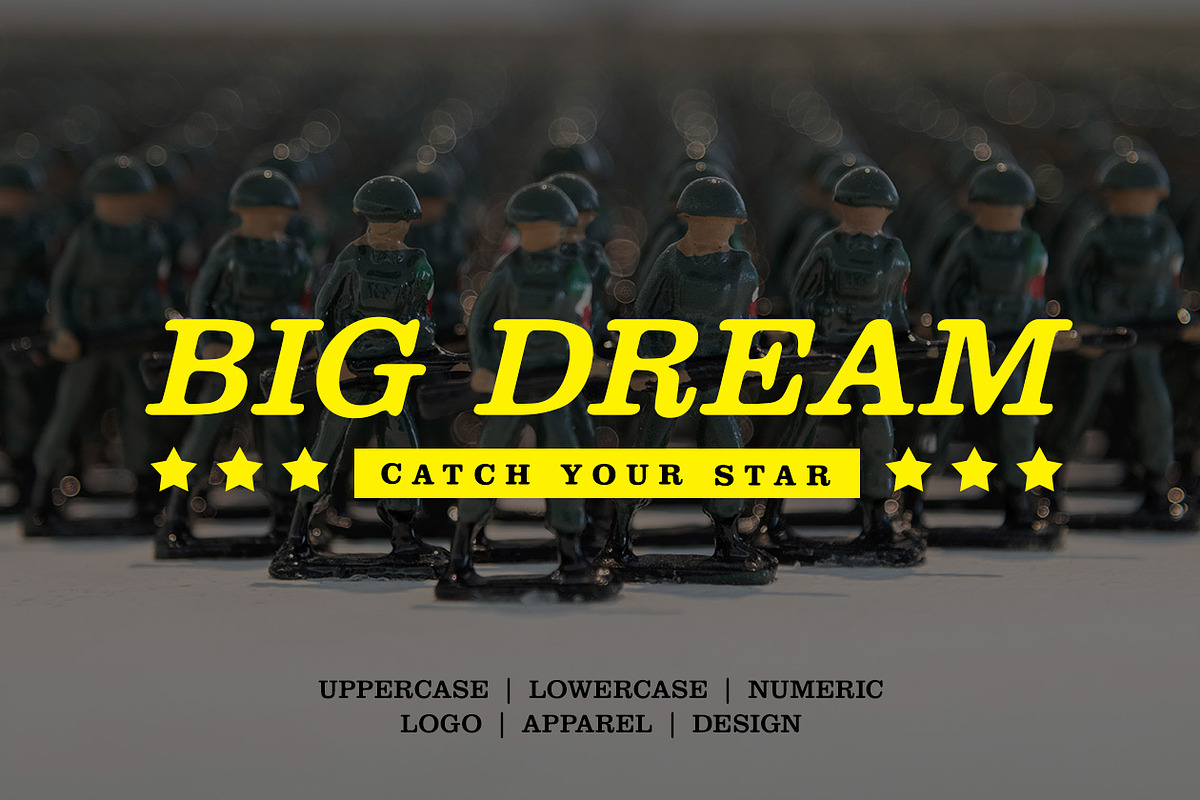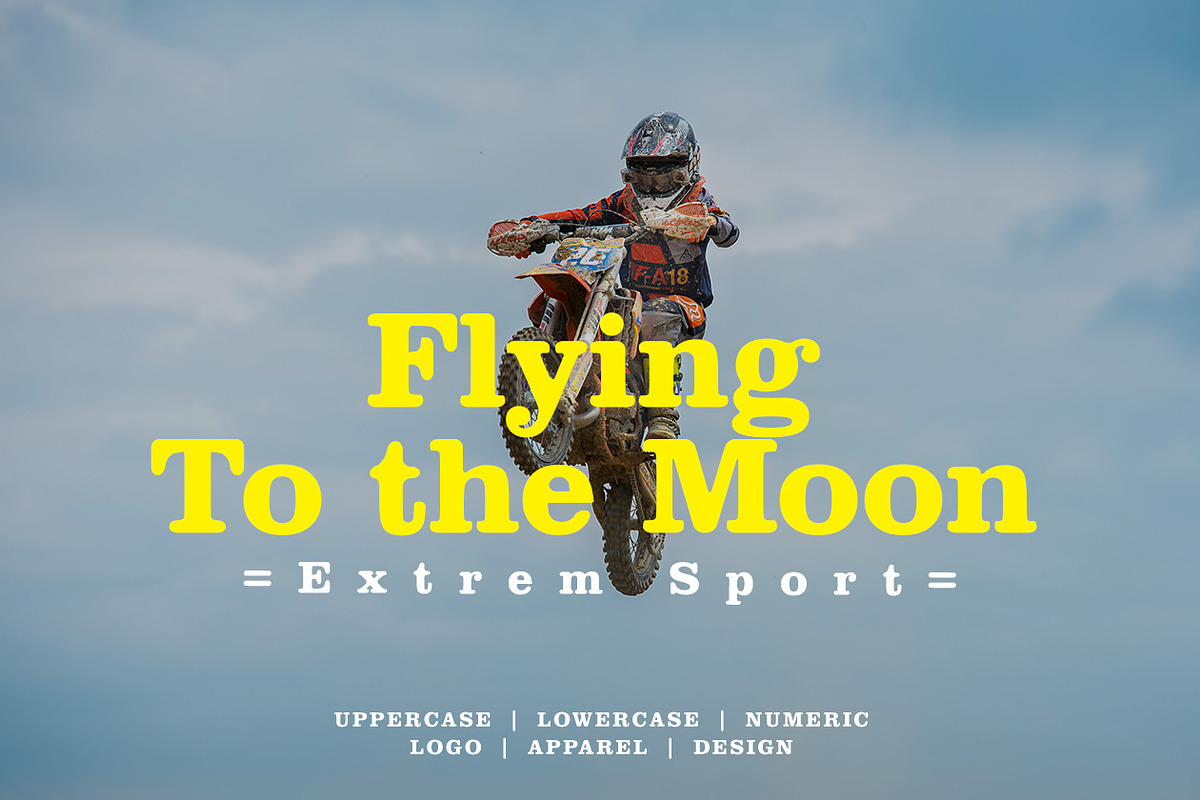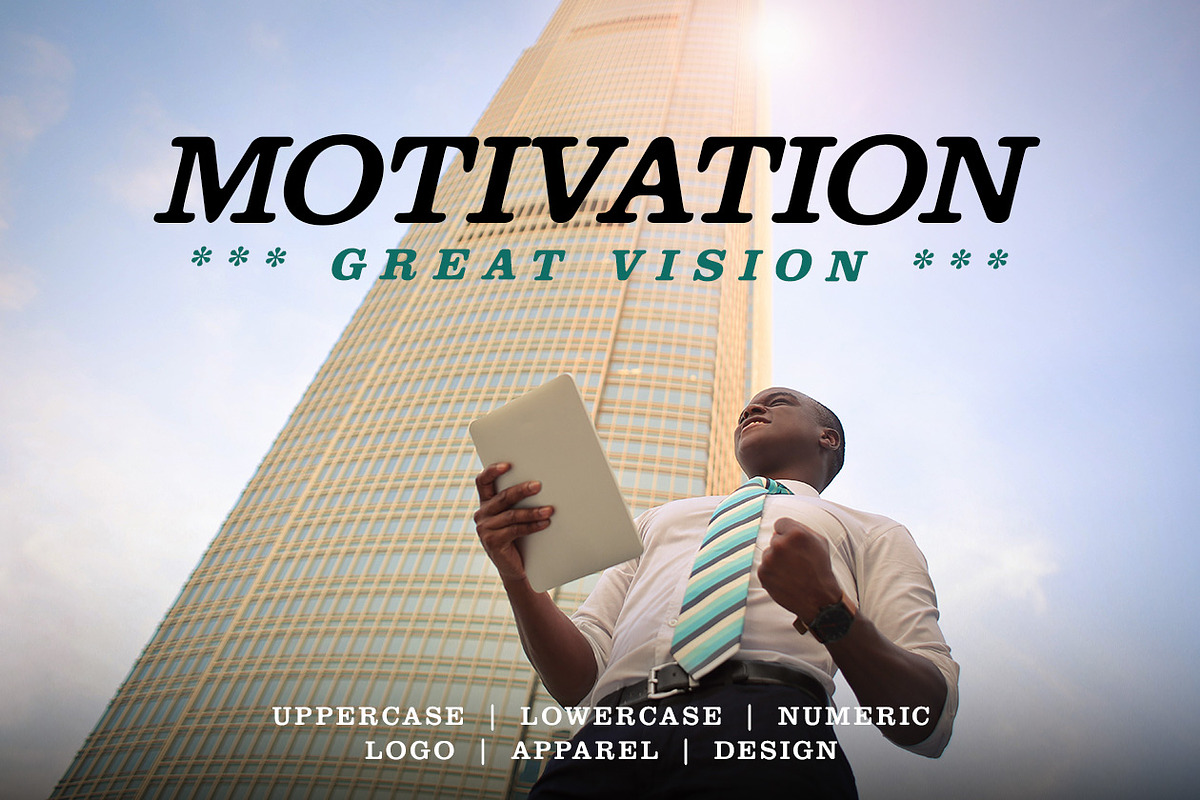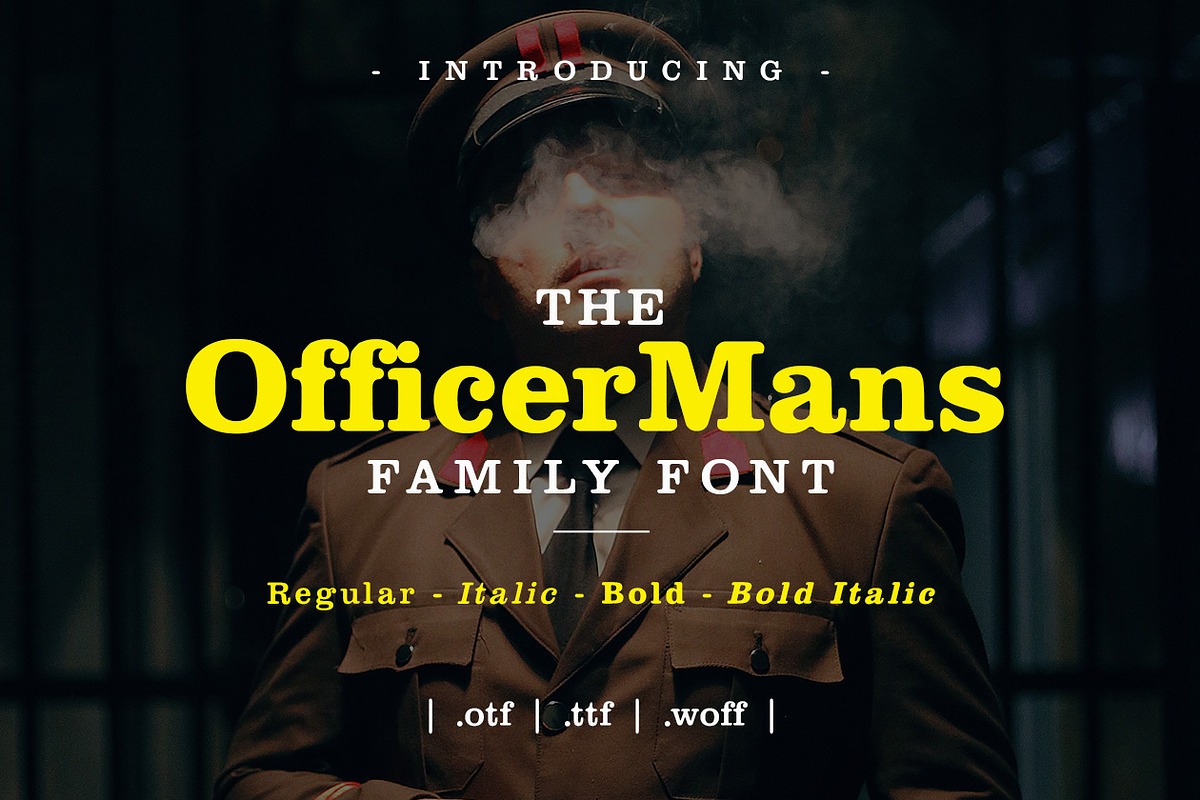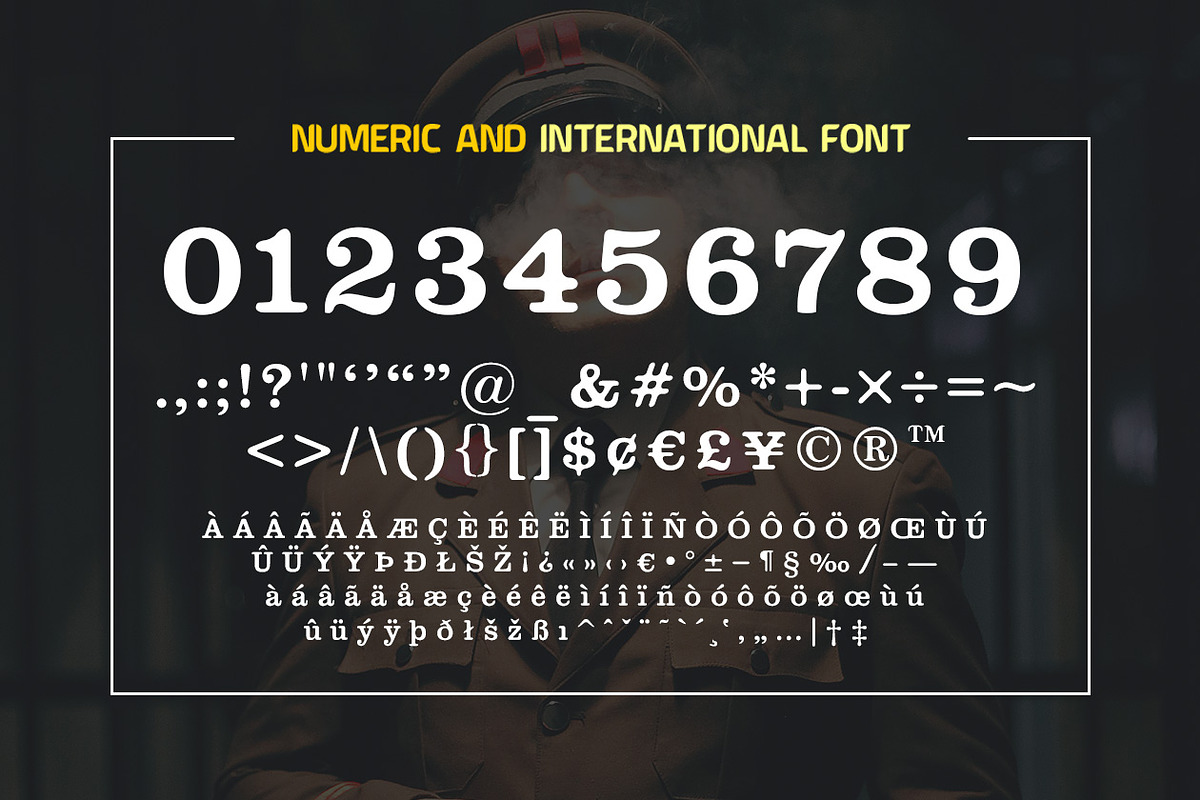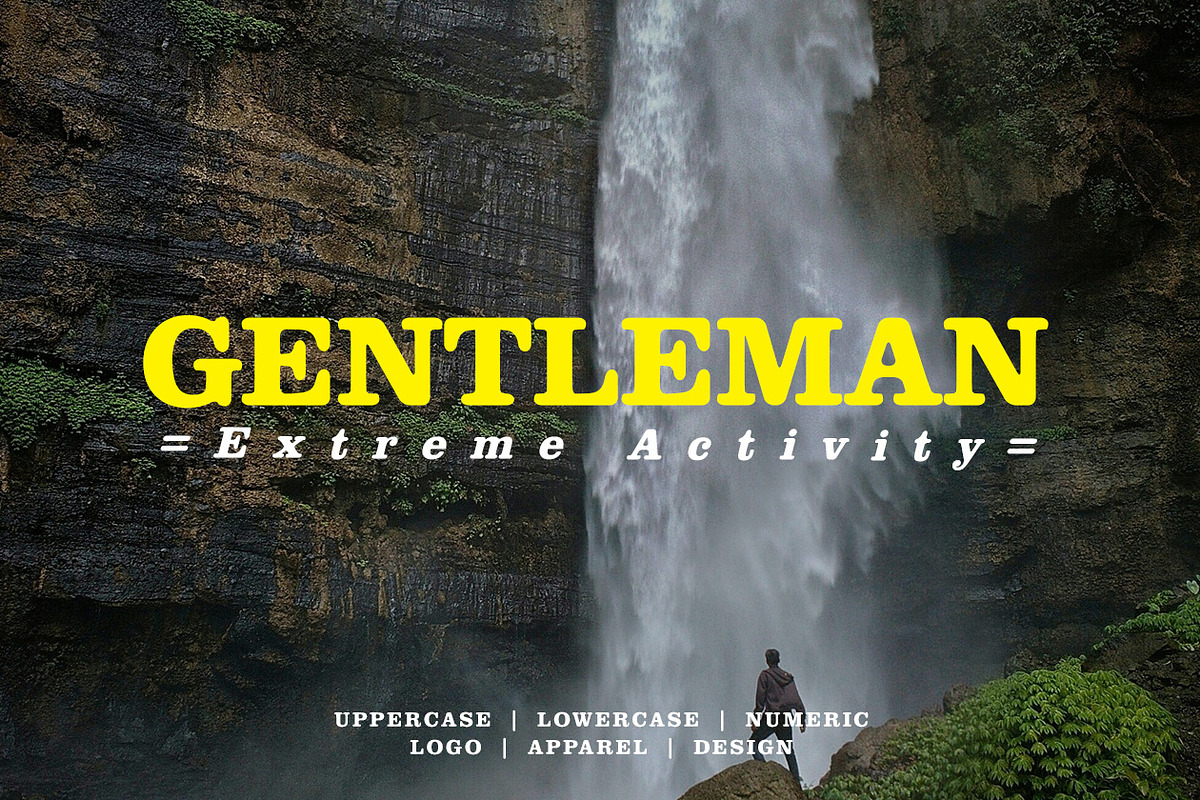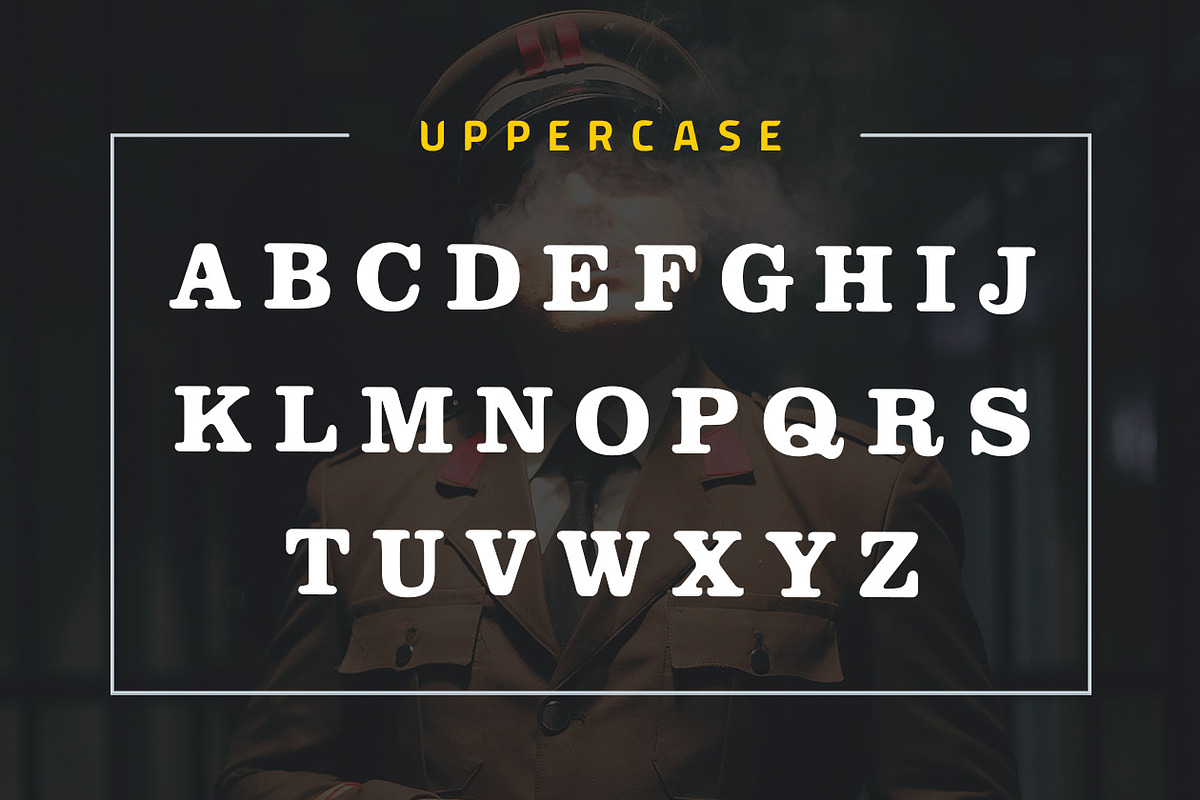
Officer Mans Family Font
Officer Mans Family Font very suitable for poster, for logo, music cover, clothing, and many many cool design projects. Officer Mans Family Font is uppercase and lowercas. Numeric and international font. Regular, Italic, Bold and Bold-Italic.